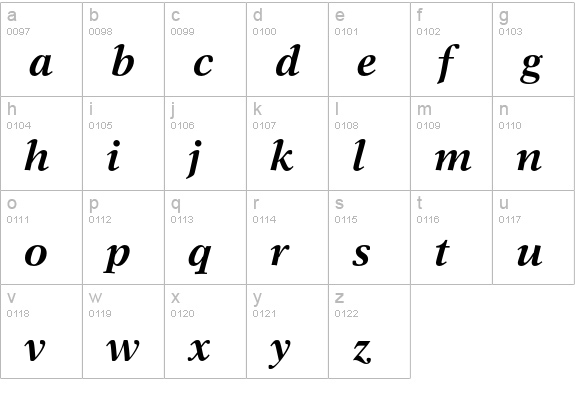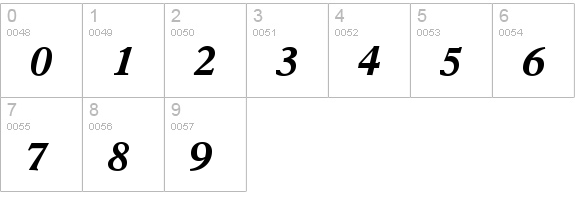
New Aster Bold Italic Font Details
New Aster Bold Italic is a strong, high-contrast, italic variant in the New typeface family \xE2\x80\x94 well suited to headlines, attention-grabbing titles, and strong calls-to-action.
Introducing the exquisite New Aster Bold Italic font, a stunning typeface that effortlessly combines boldness with elegance. Designed to make a statement and stand out, this font is perfect for adding a touch of sophistication to any design project. The New Aster Bold Italic font features a unique blend of modernity and classic charm, making it versatile for a wide range of applications. And the best part? This remarkable font is available for free download at FontsMarket.com. Whether you're working on branding, editorial design, or any creative endeavor, the New Aster Bold Italic font is sure to elevate your work to new heights. Embrace the boldness and grace of this font and let your creativity shine with every character. Elevate your designs with the timeless beauty of New Aster Bold Italic font today.